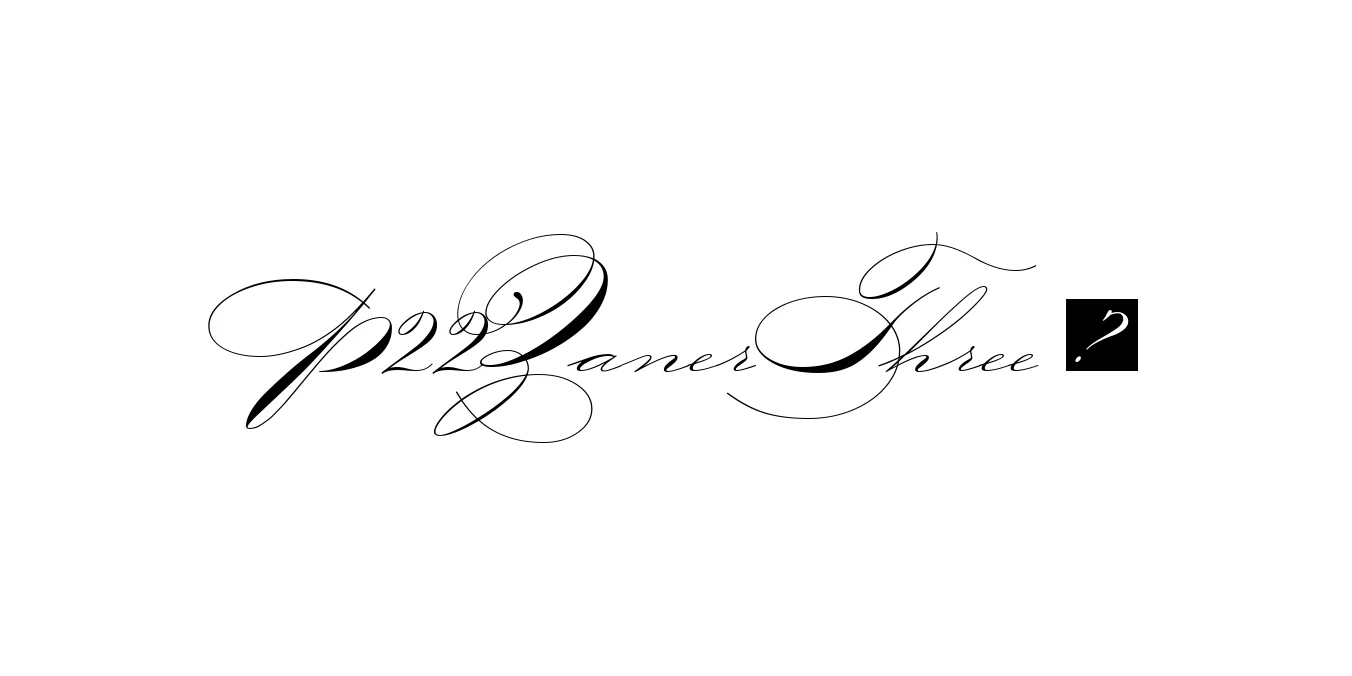
P22ZanerThree ☞
Designed by Paul Antonio
P22 Zaner Three is a masterfully rendered script typeface that pays homage to the legendary penmanship of Charles Paxton Zaner. As the founder of the Zanerian College of Penmanship in the late 19th century, Zaner's work defined the aesthetic of American ornamental script. This digital revival, crafted by calligrapher Paul Antonio for the P22 Type Foundry, captures the intricate nuances of traditional Spencerian handwriting, focusing on the rhythmic flow and delicate pressure of a flexible nib pen.
Specifically, the Zaner Three weight is characterized by its expansive flourishes and elaborate swashes that elevate it beyond a standard utility font. It serves as an essential resource for designers looking to recreate the elegance of the Victorian and Edwardian eras. With its sophisticated connection of letters and high-contrast strokes, it remains one of the most accurate and beautiful digital representations of historical penmanship available today.
P22ZanerThree ☞ Best Uses
Exquisite for invitations, save-the-date cards, and formal place settings.
Ideal for luxury brands, high-end boutiques, and artisanal products seeking a heritage feel.
The perfect choice for diplomas, awards, and historical document reproductions.
Use for drop caps or decorative headings in classical literature or historical magazines.